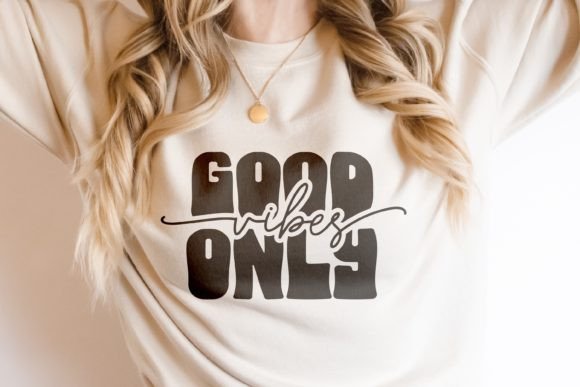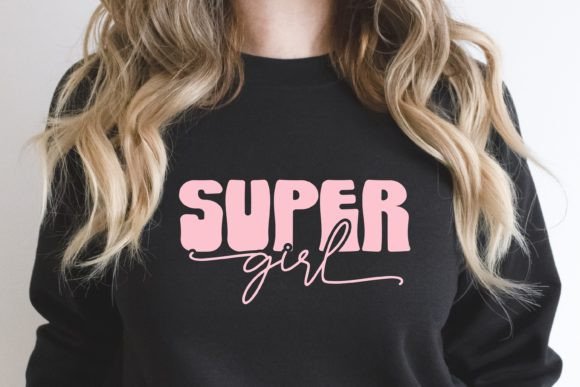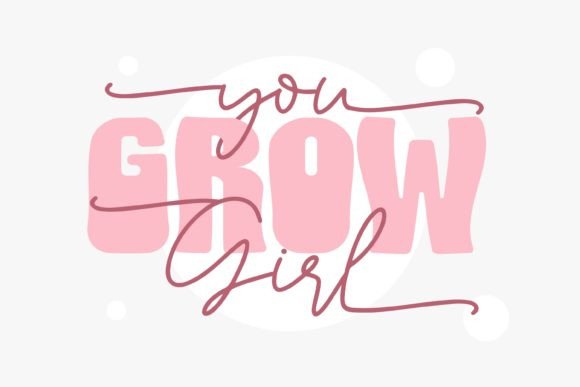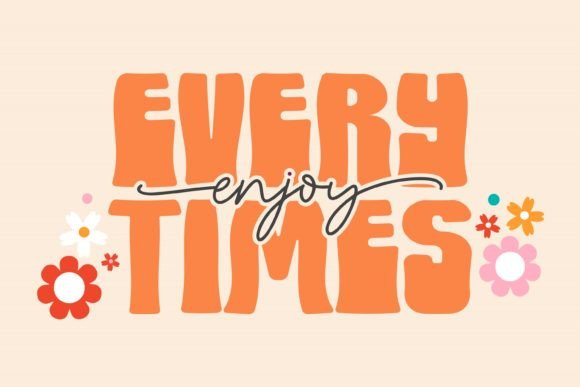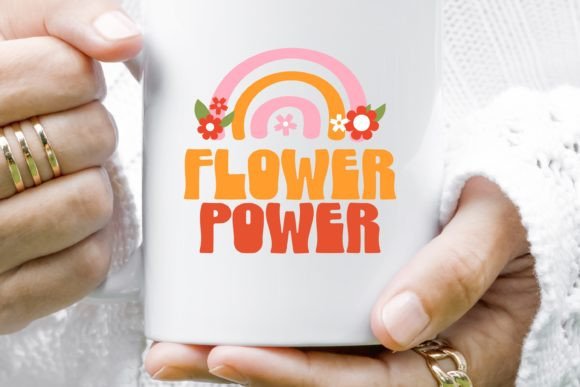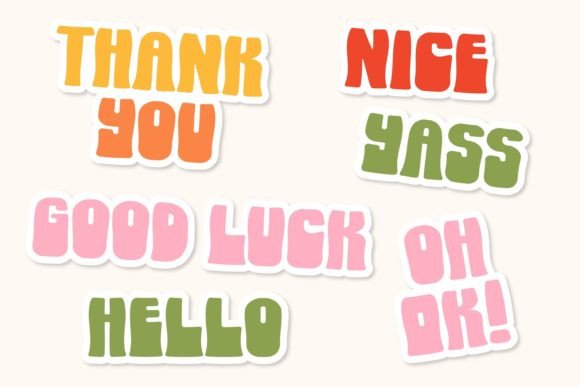
Unleash Your Creativity with Enjoy Groovy Font: The Ultimate Retro Duo Font
Are you a designer or crafter looking for a font that embodies the free-spirited and playful vibe of the 1960s and 70s? Look no further than Enjoy Groovy Font, a cool retro duo font that’s perfect for adding a groovy touch to your designs. This fantastic font is a combination of a display font and a monoline script, making it a versatile and impactful addition to any project.
The Groovy Look: A Timeless Design Trend
The groovy look is a timeless design trend that continues to inspire designers and crafters today. Characterized by its playful, colorful, and eclectic style, the groovy look is all about embracing creativity and self-expression. Whether you’re working on a design project for a client or creating something for personal enjoyment, the groovy look is sure to make a statement.
What Makes Enjoy Groovy Font So Special?
Enjoy Groovy Font is a unique and exciting font that’s specifically designed to capture the essence of the groovy look. Here are just a few reasons why this font stands out:
• Dual-font design: Enjoy Groovy Font is a duo font that combines a display font with a monoline script. This allows you to add a touch of sophistication and elegance to your designs, while also injecting a playful and whimsical vibe.
• Retro charm: Enjoy Groovy Font is heavily influenced by the typography of the 1960s and 70s, making it perfect for designers and crafters who love the retro aesthetic.
• High-impact lettering: The display font component of Enjoy Groovy Font features bold, chunky lettering that’s guaranteed to make an impact. Use it to add emphasis to headings, titles, and other key design elements.
• Elegant script: The monoline script component of Enjoy Groovy Font is perfect for adding a touch of elegance and sophistication to your designs. Use it to create beautiful, flowing text that’s perfect for quotes, testimonials, and more.
How to Use Enjoy Groovy Font in Your Designs
Enjoy Groovy Font is incredibly versatile and can be used in a wide range of design projects, from posters and flyers to logos and branding materials. Here are a few ideas to get you started:
• Create a groovy poster: Use Enjoy Groovy Font to create a bold and eye-catching poster that’s perfect for promoting a concert, festival, or other event.
• Add a retro touch to your branding: Enjoy Groovy Font is perfect for adding a touch of retro charm to your branding materials, from logos and business cards to letterheads and packaging.
• Make a statement with a bold title: Use the display font component of Enjoy Groovy Font to create a bold and attention-grabbing title that’s perfect for headings, subheadings, and other key design elements.
• Create a beautiful quote: Use the monoline script component of Enjoy Groovy Font to create a beautiful and elegant quote that’s perfect for social media, blogs, and other online platforms.
Why Designers and Crafters Love Enjoy Groovy Font
Enjoy Groovy Font has quickly become a favorite among designers and crafters who love the retro aesthetic. Here are just a few reasons why:
• High-quality design: Enjoy Groovy Font is designed to the highest standards, with clean lines, elegant curves, and a bold, chunky aesthetic.
• Versatile: Enjoy Groovy Font can be used in a wide range of design projects, from posters and flyers to logos and branding materials.
• Unique: Enjoy Groovy Font is a truly unique font that’s sure to make your designs stand out from the crowd.